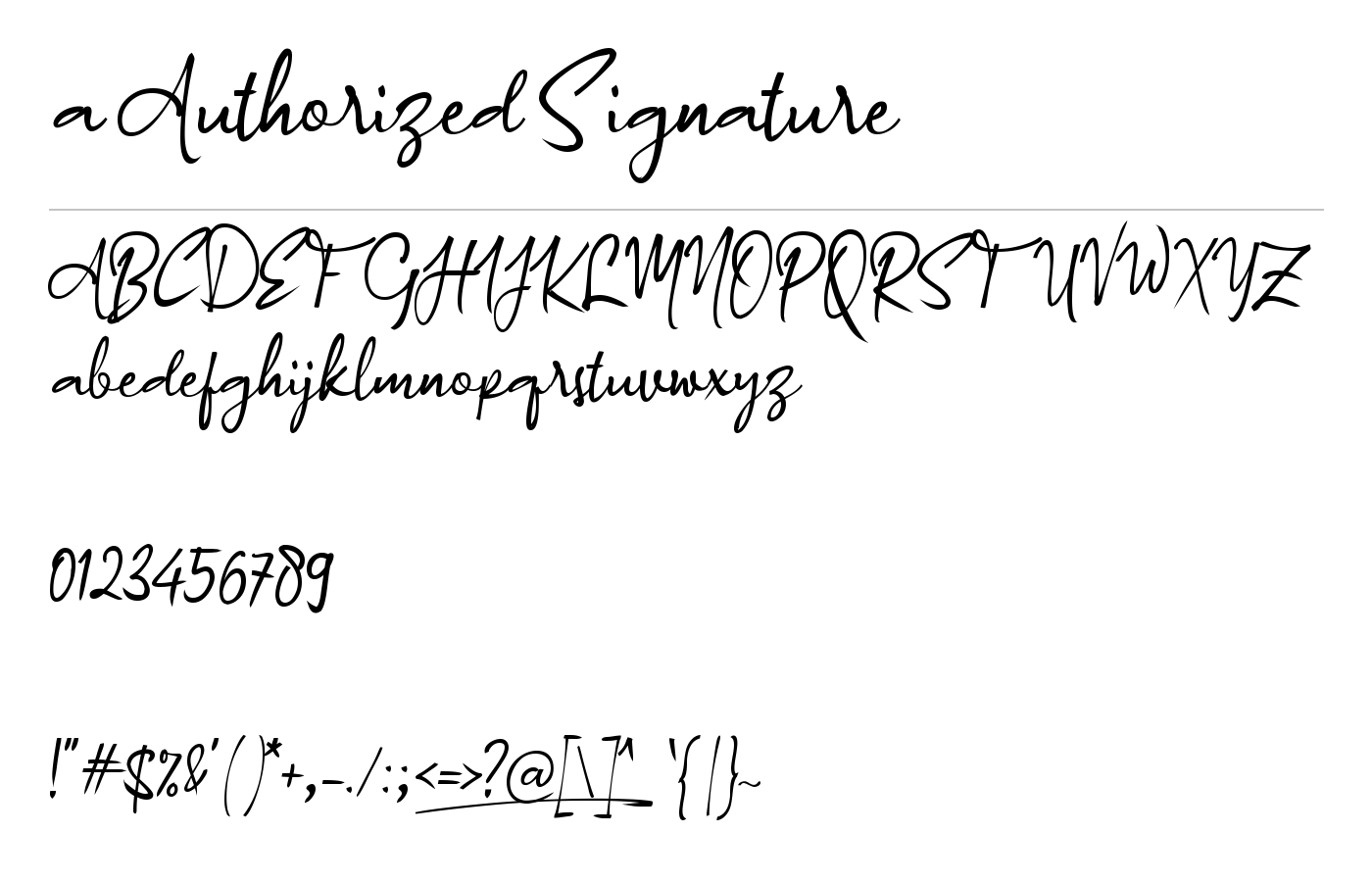
Authorized Signature is a lively and elegant script font that mimics natural handwriting with a smooth, flowing style. It features slender strokes with moderate contrast, maintaining readability while conveying a personal, sophisticated charm ideal for branding, invitations, and signature-style logos. This font works beautifully when aiming for a stylish, authentic feel that adds a touch of warmth and individuality.
a Authorized Signature Font
About a Authorized Signature Font